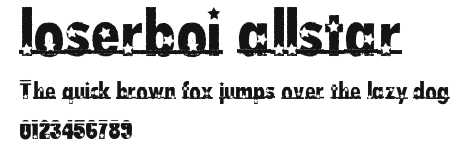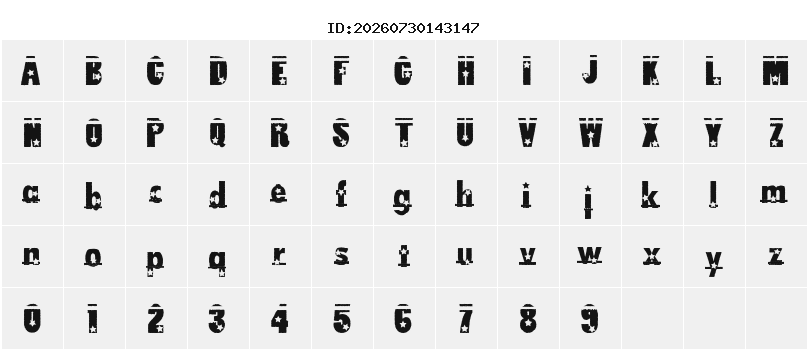
• Font Name: loserboi allstar
• Full Font Name: loserboi allstar
• Designer: kevin thomas / loserboi
About loserboi allstar.ttf
loserboi allstar.ttf is a modern, elegant sans-serif font designed for ultimate readability and visual harmony. Perfect for branding, headlines, web design, and print materials.